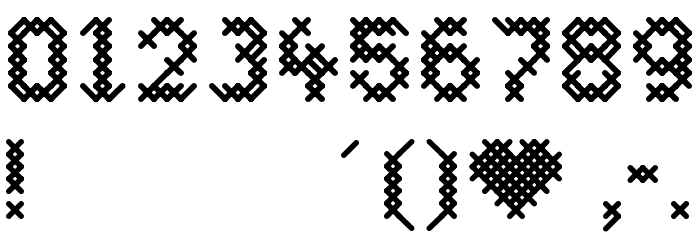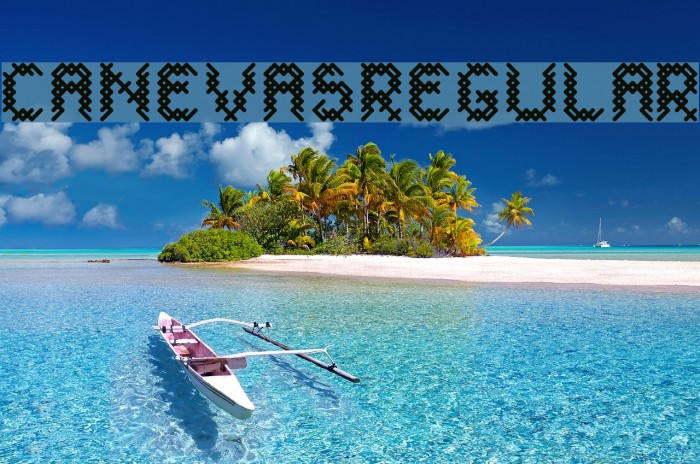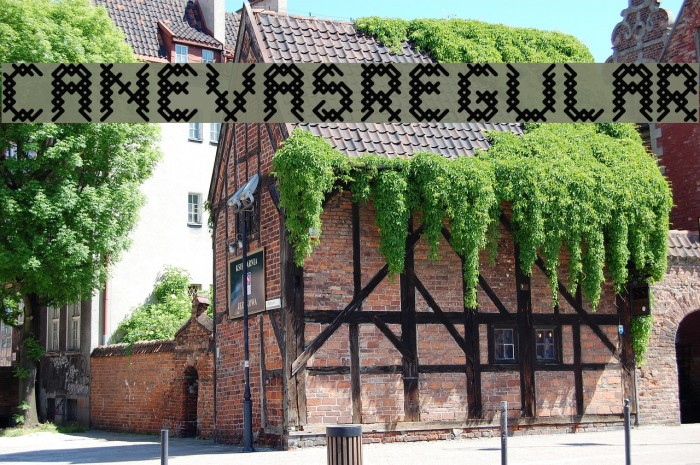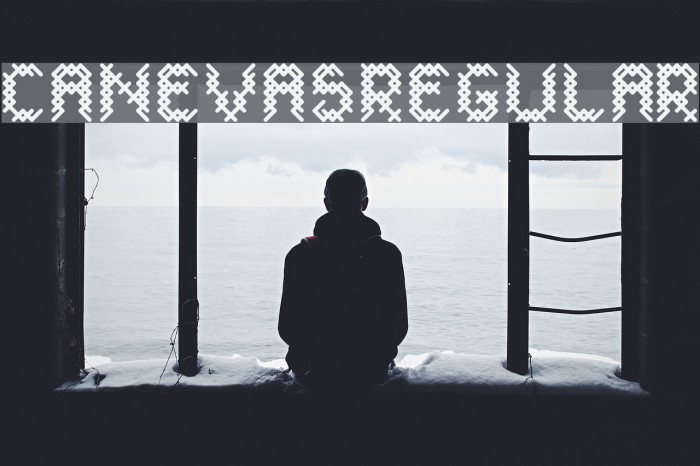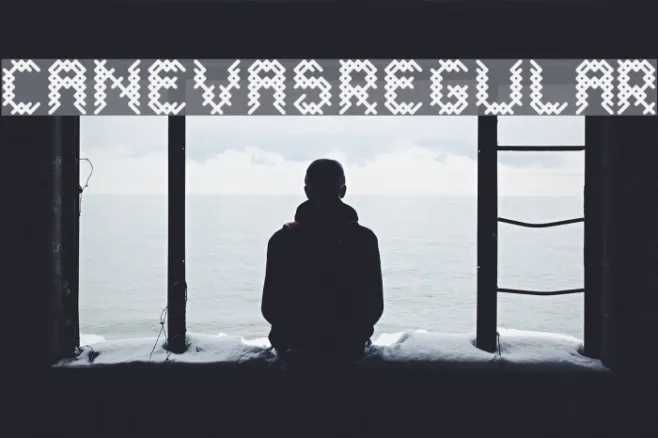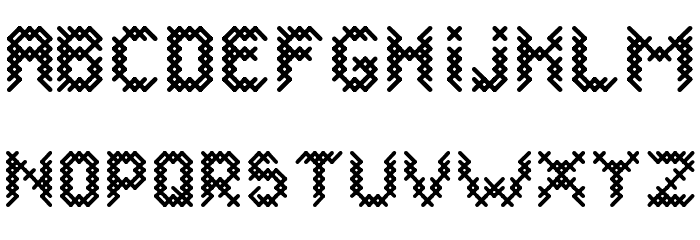
CANEVASRegular Font
This font features a unique cross-stitch pattern that gives it a handcrafted, artisanal feel. Each character is composed of intersecting lines that mimic the appearance of embroidery, creating a textured and dimensional look. The uppercase and lowercase letters maintain a consistent style, with a playful yet structured design. Numbers and special characters follow the same pattern, ensuring uniformity across all glyphs. This font is ideal for projects that require a touch of creativity and a handmade aesthetic, making it perfect for crafts, DIY projects, and artistic branding.
| Use Case | Logos, Headlines, Artistic projects |
| Proposed Projects | Ideal for crafts, DIY projects, artistic branding, and creative designs. |